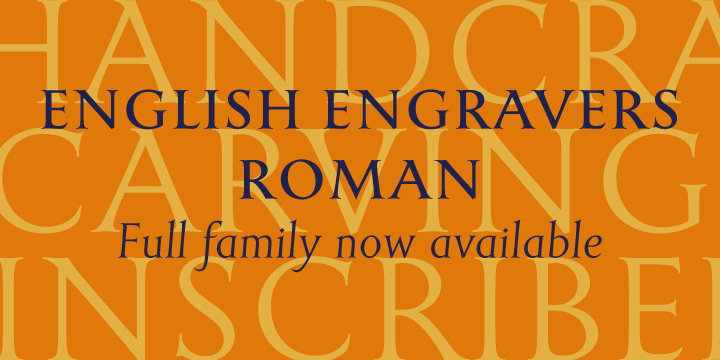
• English Engravers Roman
English Engravers Roman was designed by Robbie Smith for Smith Hands and was inspired by the many beautiful examples of English letter carving produced in the fruitful period between 1930 and 1980, when a beautiful, rich style of inscribed lettering was developing. With letter carvers such as Eric Gill [apprentice to calligrapher, designer Edward Johnston] and David Kindersley [apprentice to Gill] driving this craft culture and enriching the architecture and memorials of England.
English Engravers Roman features some of the spirit of this English style, with a timeless refinement and a wide character set that features extra ligatures to enhance letter spacing, along with a set of oldstyle numerals in addition to the traditional figures.